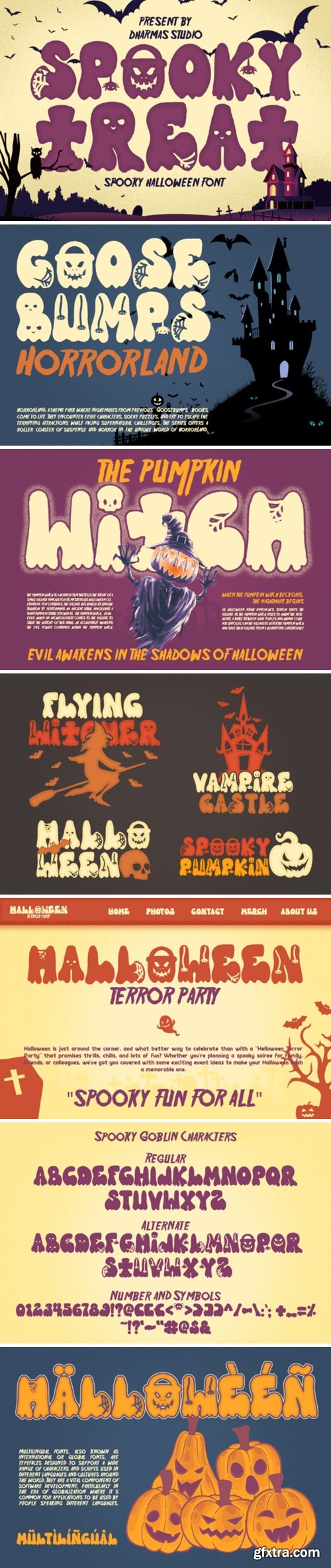
吓人的 treats 字体
The ultimate Halloween font that will send shivers down your spine! SPOOKY TREAT features a haunting dripping effect, complete with ghostly elements, spiders, and cobwebs, making it the perfect addition to your spooky projects. SPOOKY TREAT is incredibly versatile and ideal for a wide range of creative endeavors, including Cricut designs, t-shirts, retro-themed projects, Halloween invitations, mugs, stickers, materials for teachers, Goodnotes, and so much more!